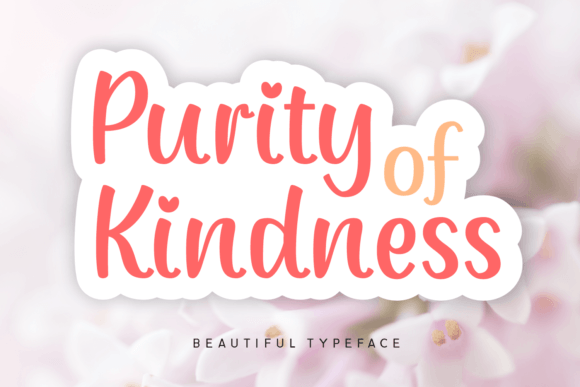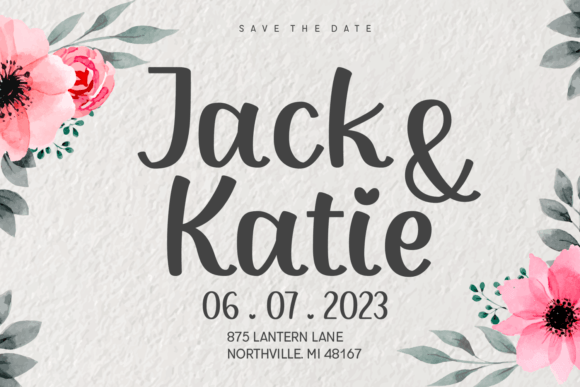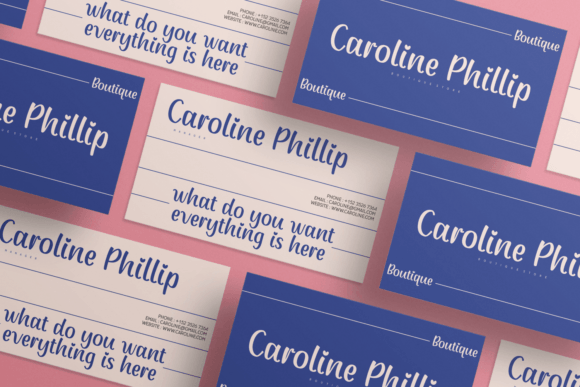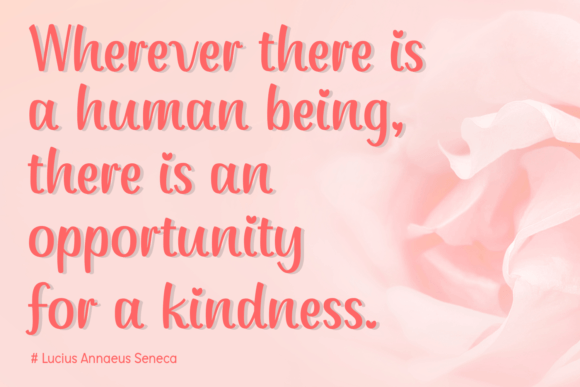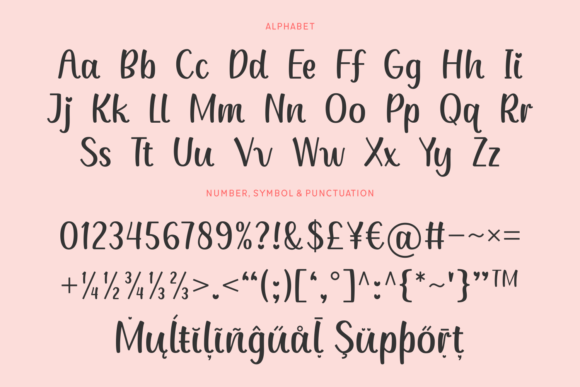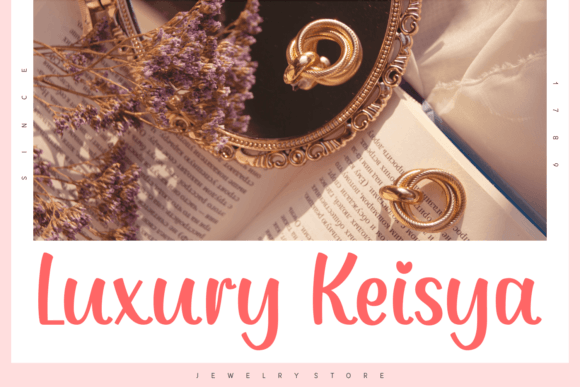
Purity of Kindness Font
About Purity of Kindness Font
“Purity of Kindness” is a refined and delicate font meticulously crafted to infuse your creative works with a touch of personality and sophistication. Its clean and elegant design makes it a versatile choice for a variety of projects, including invitations, greetings, business cards, and similar designs where a sharp and unique appearance is desired.
The font’s subtle curves and precise lines create a sense of grace and harmony, enhancing the overall aesthetics of your designs. Its understated elegance adds a touch of sophistication, making it suitable for both formal and informal contexts. Whether you’re creating wedding invitations, personalized greetings, or professional business materials, “Purity of Kindness” lends a subtle charm to your projects, elevating them to a higher level of refinement.
One of the notable features of “Purity of Kindness” is its PUA encoding, allowing easy access to a wide range of glyphs and swashes. This feature enhances your creative freedom, enabling you to customize your designs with decorative elements and intricate details. By utilizing these additional characters, you can create visually appealing compositions that reflect your unique style and creativity.
Embrace the understated beauty of “Purity of Kindness,” and let it add a touch of sophistication and personality to your creative endeavors. With its clean and delicate aesthetic, this font is sure to make a lasting impression on your audience, making your designs stand out with elegance and grace. Use it with confidence, and watch your creations come to life with its timeless appeal.